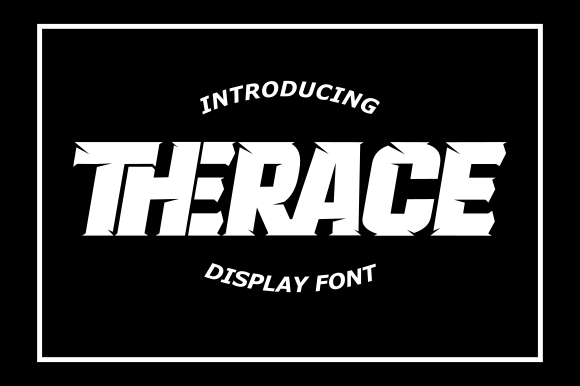
Unleash the vibrancy of Therace Font, a captivating display font that's guaranteed to bring life to your designs. Immerse yourself in its bold, playful strokes, adding a touch of whimsy and energy to your creations.
Therace Font is the epitome of boldness, its chunky letters commanding attention with their playful charm. Let your words dance across the page, exuding a vibrant personality that's sure to leave a lasting impression. Therace Font is a true chameleon, effortlessly adapting to a myriad of design styles.
Whether you're crafting eye-catching headlines, designing captivating posters, or adding a playful touch to your social media posts, Therace Font has got you covered. Its versatility is truly remarkable, making it an indispensable tool in any designer's arsenal.
Therace Font's intuitive design makes it a breeze to use, even for beginners. Unleash your creativity and let your designs flourish with this user-friendly font. With Therace Font, there are no limits to your imagination.
Dive into the world of Therace Font and discover a new dimension of design possibilities. Its PUA encoding grants you effortless access to a treasure trove of glyphs and swashes, empowering you to add intricate details and flourishes to your projects.
Join the Therace Font revolution and elevate your designs to new heights. Embrace the boldness, ignite your creativity, and let your projects shine with the captivating allure of Therace Font.